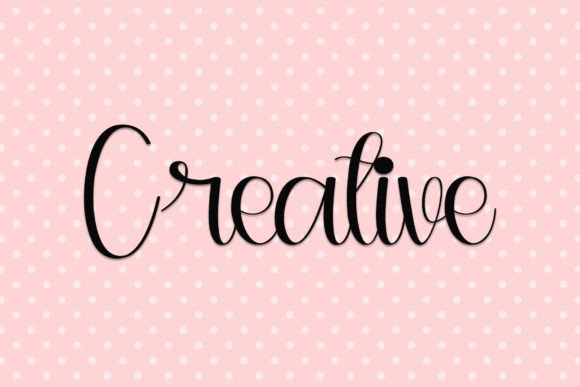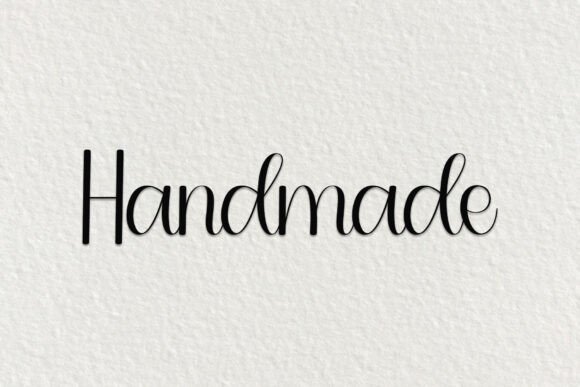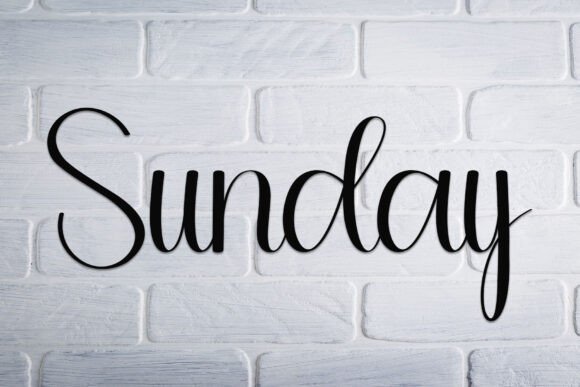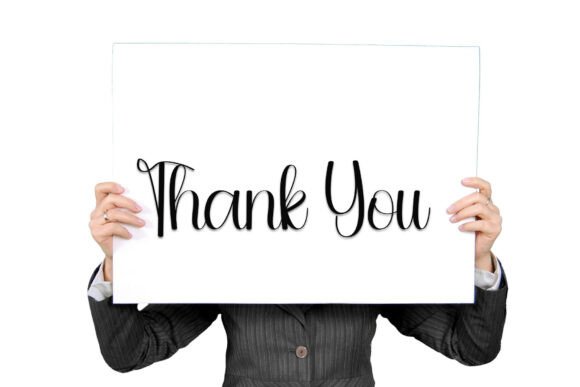
Unleash the Art of Elegant Design with the Baby Dool Font
You know that moment when a single font can elevate your entire design project? For me, it was the first time I stumbled upon the Baby Dool Font. Its unique blend of classic calligraphy and modern flair instantly caught my attention, and I knew I had to learn more.
As a designer, I’m always on the lookout for fonts that bring a touch of sophistication and elegance to my work. That’s exactly what the Baby Dool Font delivers. This trendy handwritten font is perfect for adding a personal touch to your designs, from wedding invitations to social media graphics. With its impeccable form and contemporary atmosphere, the Baby Dool Font is a valuable addition to any designer’s toolkit.
Baby Dool Font Key Features
- Font Family: Baby Dool Font
- Unique Characteristics: Whimsical, handwritten font with a playful feel, perfect for children’s books, nursery decorations, and other projects that require a friendly and approachable tone.
Baby Dool Font Review
When I first saw the Baby Dool font, I was immediately drawn in by its playful and whimsical vibe ✨. The font’s unique combination of rounded shapes and bold lines creates a fun and energetic feel that’s perfect for children’s books, nursery decor, and other kid-friendly projects.
The font’s versatility is also a major plus ✨. It comes in a range of weights and styles, making it easy to use in different contexts. I particularly like the bold and condensed versions, which add an extra layer of visual interest to text.
However, I do have some reservations about the font’s legibility ⚠️. At smaller font sizes, the Baby Dool font can become difficult to read, especially for those with visual impairments. Additionally, the font’s irregular shapes can make it challenging to use in situations where readability is crucial.
Overall, I think the Baby Dool font is a great choice for designers looking to add a touch of whimsy to their projects ✨. While it may not be the most practical font for all situations, its unique personality and versatility make it a great addition to any design arsenal.
Pros:
- Unique and playful design
- Versatile and comes in a range of weights and styles
- Perfect for children’s projects and nursery decor
Cons:
- Legibility issues at smaller font sizes
- Irregular shapes can be challenging to use in certain situations
The Baby Dool Font is ideal for creating playful and whimsical designs, such as children’s book illustrations, nursery decor, and baby-themed merchandise. It’s also suitable for use in branding and advertising campaigns that target young parents or families.
To get the most out of the Baby Dool Font, experiment with different font sizes, colors, and styles to create visually appealing designs. You can also pair the font with other playful fonts or graphics to create a cohesive look. Don’t be afraid to try out new combinations and see what works best for your project.